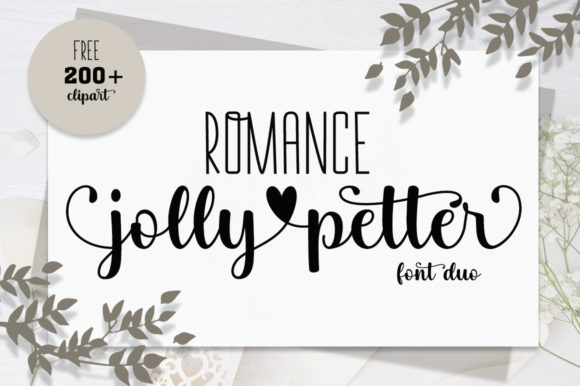
Ignite your creativity and let your designs dance with the enchanting Romance Jollypetter Font Duo, a harmonious blend of handwritten and sans-serif elegance. Step into a world of visual delight, where each letter is a brushstroke of art, flowing effortlessly like a symphony of ink.
Unleash the boundless potential of Romance Jollypetter, the perfect font for Instagram videos that demand attention. Its delicate swashes and charming details will transform your content into captivating stories, captivating your audience with every frame.
With Romance Jollypetter, your words will resonate with heartfelt emotion, leaving an indelible mark on your viewers. Express your love, joy, and wanderlust with a font that speaks to the soul.
Romance Jollypetter's versatility knows no bounds. From letterheads and titles to stationery and beyond, this font duo will elevate your designs to new heights. Its elegant charm will add a touch of sophistication to any project, making it a must-have for creatives seeking originality and distinction.
Immerse yourself in the world of Romance Jollypetter, where imagination takes flight and your designs come alive. Experience the beauty of words when they are adorned with this exquisite font duo. Let Romance Jollypetter be your creative companion, guiding you towards masterpieces that leave a lasting impression.